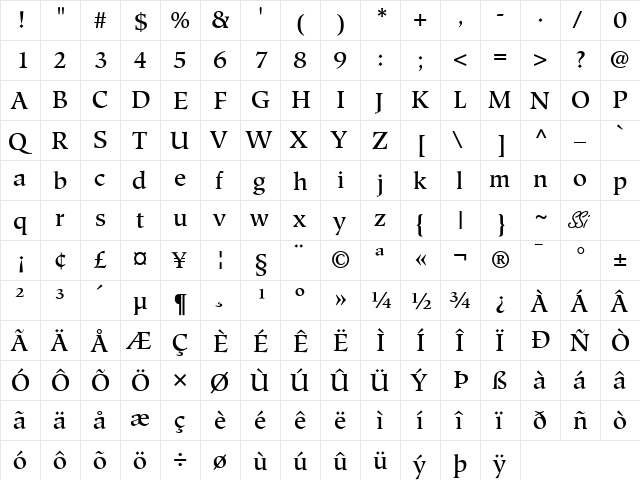
Glossary Medium SSi Medium
Design Context for Glossary Medium SSi Typeface
Glossary Medium SSi takes a measured approach to typography — its balanced proportions and neutral character make it a reliable workhorse for both digital and print work.